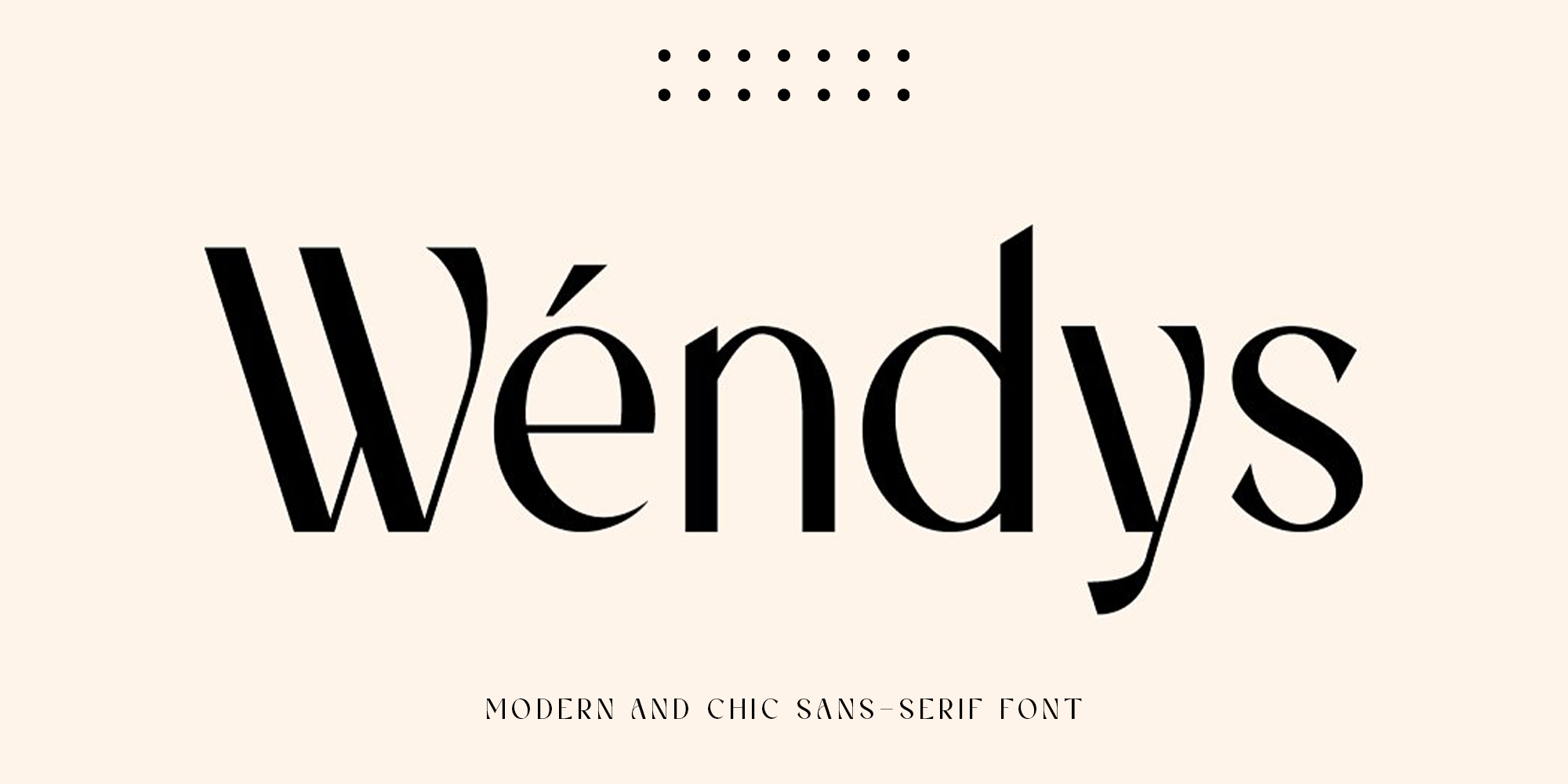
The Wendys Font is perfect for personal branding projects, friendly restaurant signage, welcoming boutique identities, warm hospitality communications, personalized service materials, intimate café branding, individual consultant logos, and approachable design applications that require personal warmth with friendly character and genuine hospitality.
What makes the Wendys Font Free Download so exciting is its exceptional ability to convey personal warmth and genuine friendliness through typography that embodies the welcoming spirit of someone who genuinely cares about creating positive experiences for every person they encounter. This typeface features friendly letterforms with personal characteristics that suggest warm smiles, genuine conversations, and the authentic hospitality that makes customers feel like valued friends rather than anonymous transactions. Its personable aesthetic speaks to service-oriented businesses and individuals who understand that genuine human connection is the foundation of lasting success, making it perfect for personal service providers, hospitality venues, and relationship-focused organizations requiring typography that projects both professional competence and heartfelt authenticity.
The Wendys Font family encompasses welcoming weight variations from Light to Bold, each maintaining the font's signature friendly character and personal sophistication. The collection includes Regular, Medium, and Bold styles with enhanced warm characteristics that reinforce the font's approachable appeal and genuine authority. This friendly font system ensures personal service providers and hospitality businesses have access to typography that conveys authentic warmth while creating immediate connection to concepts of personal care, friendly service, and genuine hospitality excellence.
Perfect for family restaurants, personal service providers, boutique hospitality venues, and creative professionals working on projects that celebrate genuine human connection and personal service with authentic friendliness. The font's welcoming appeal makes it invaluable for hospitality marketers, personal brand designers, and service-focused professionals developing communications that must connect personally while building lasting relationships. Download Wendys Font Free Download today and welcome customers with this exceptional typeface that greets with genuine warmth while delivering friendly sophistication and personal authenticity for hospitality communications.